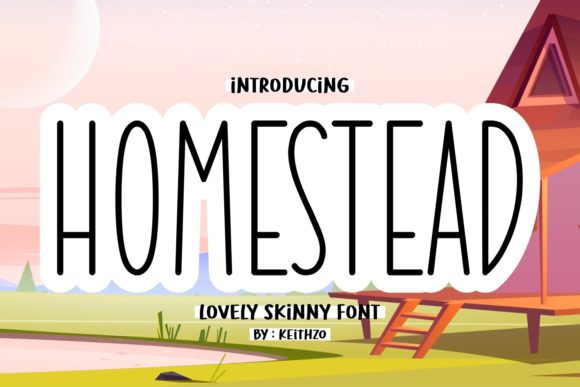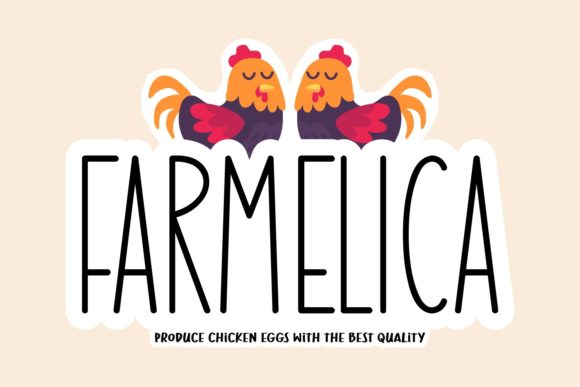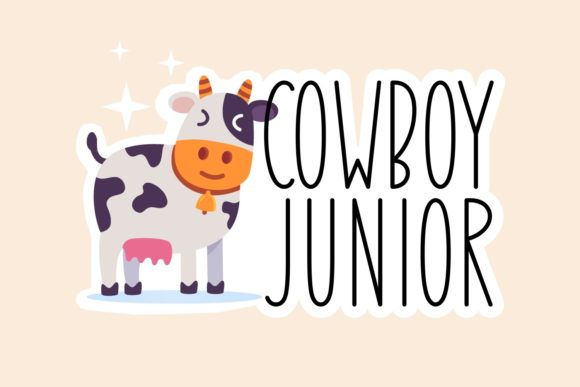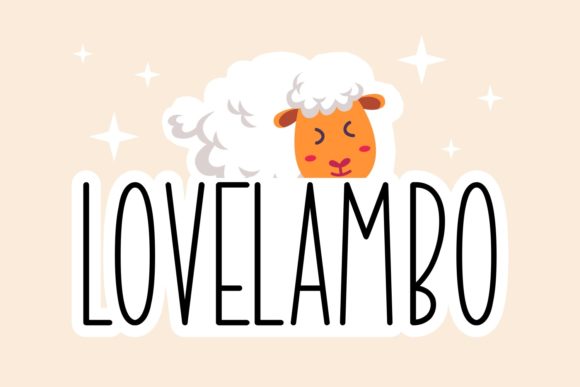
Homestead Font
Homestead is a tall, thin lettered and skinny looking handwritten font. It was particularly crafted for those who need a beautiful and refreshing look to their designs.